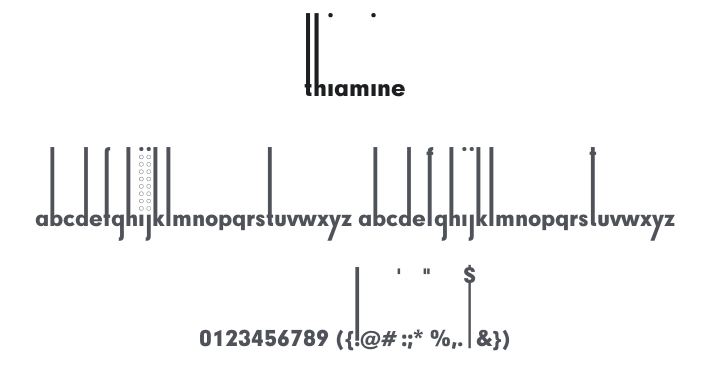
Thiamine Font
About Thiamine
Thiamine is a striking lowercase display typeface with an extreme typographic personality — its ascenders and tall strokes soar dramatically upward while the actual letter bodies sit tiny at the baseline, creating a bold architectural rhythm of tall vertical lines above a minimal text zone. The result feels like modernist bar code art. Perfect for editorial headlines, architectural branding, minimalist posters, and any design needing dramatic vertical tension.